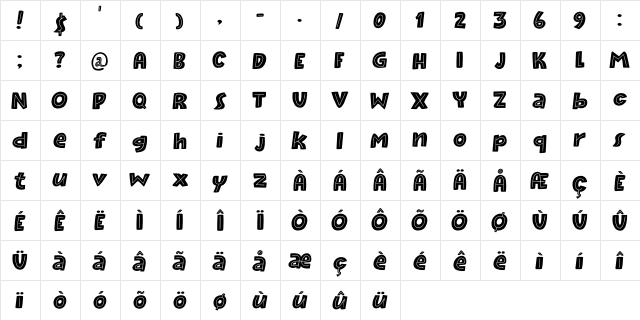
Raspberry Sherbet Inline DEMO Regular
Design Context for Raspberry Sherbet Inline DEMO Typeface
Raspberry Sherbet Inline DEMO is built around its visual character rather than neutral utility — its distinctive forms are designed to make an impression at display sizes.
Font Pairing: Pair with a clean neutral sans-serif for body copy to let Raspberry Sherbet Inline DEMO's character lead without overwhelming the composition.
Pro Tip: Treat Raspberry Sherbet Inline DEMO as the centrepiece of your typographic hierarchy. One strong heading set in a decorative face can carry an entire layout.